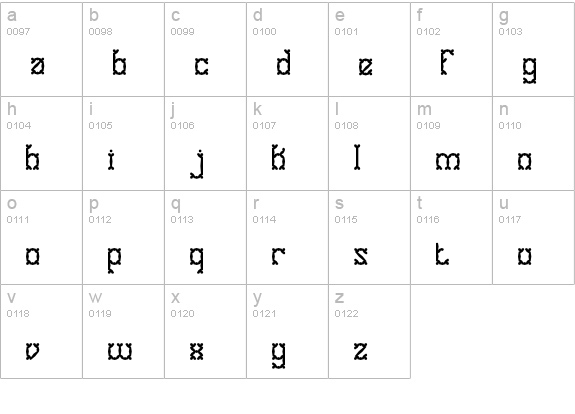
Goose Bumps II BRK Font Details
Goose Bumps II BRK font is a hauntingly beautiful typeface that is sure to send shivers down your spine. With its jagged edges and spooky design, this font exudes an eerie charm that is perfect for Halloween-themed projects, horror movie posters, or any other project that requires a touch of the macabre. The unique and distinctive style of Goose Bumps II BRK font makes it stand out from the crowd and adds a touch of mystery to any design. Whether you're creating a spooky invitation or a chilling flyer, this font is sure to make a statement. Best of all, Goose Bumps II BRK font is completely free to download at FontsMarket.com. So why wait? Add a touch of the supernatural to your next project with this spine-chilling font today!